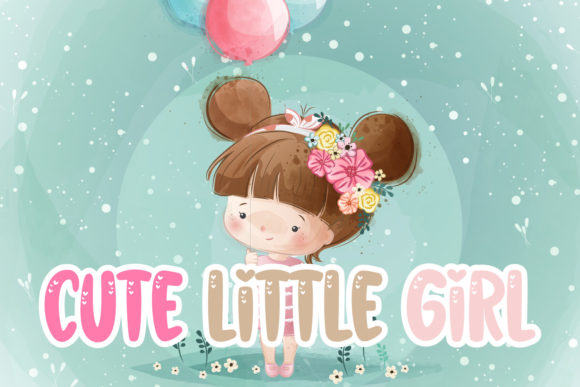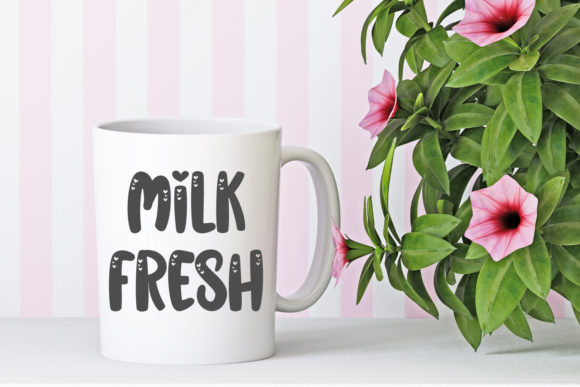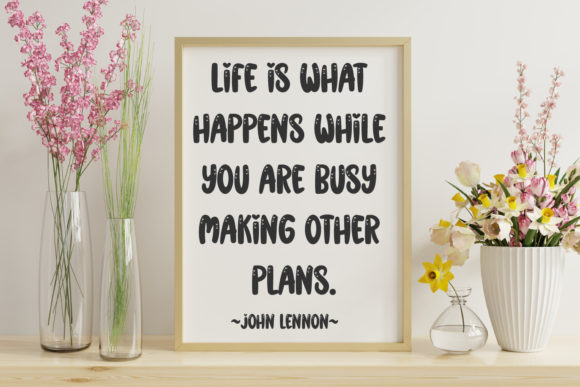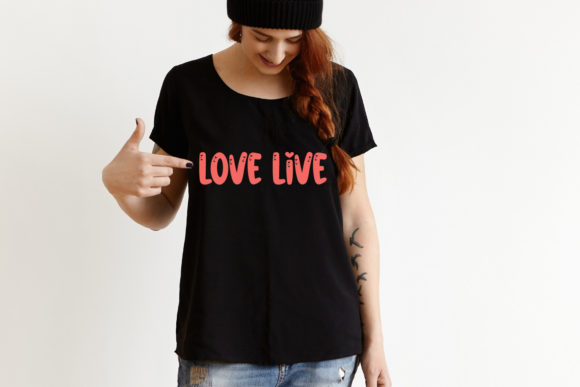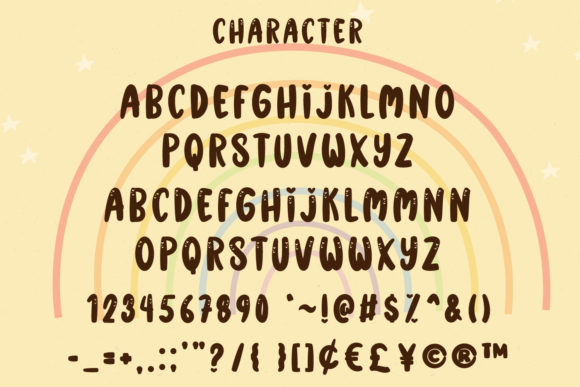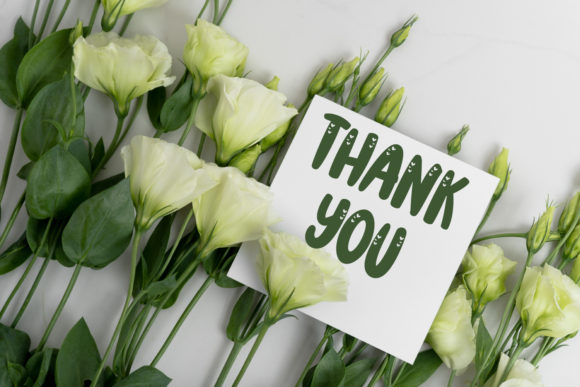
Introduction to Rainbow Live Font
As a designer, there’s nothing quite like the thrill of seeing a project come to life. You’ve poured your heart and soul into it, and the moment you add the finishing touches, it’s like a lightbulb moment – everything just clicks. But sometimes, no matter how hard you try, that project just needs a little something extra to make it truly stand out. That’s where the Rainbow Live Font comes in.
With its charming characters that seem to dance along the baseline, this high-quality font is the perfect addition to any creative project. Whether you’re working on a children’s book, a social media campaign, or a simple blog post, the Rainbow Live Font is sure to bring a smile to your audience’s face. And the best part? It’s completely free to download, making it a valuable resource for designers of all levels.
So why settle for a plain, generic font when you can add a touch of whimsy and personality to your design with the Rainbow Live Font? Its transparent background makes it easy to use on any background, and its high-quality design ensures that it will look great on any device. Get ready to take your creative projects to the next level with this fun and playful font!
Key Features of Rainbow Live Font
- High-quality, colorful design perfect for creative projects and presentations
- Unique, hand-drawn design with transparent background for flexible use in various designs
- Perfect design resource for designers, artists, and creatives working on digital projects
Honest Review: Rainbow Live Font
I recently stumbled upon the Rainbow Live Font, and I must say it’s been a game-changer for my creative projects. As a designer, I’m always on the lookout for high-quality fonts that can add a pop of color to my work.
- Transparency: The font has a transparent background, making it super easy to layer over different images or backgrounds.
- Customization: The Rainbow Live Font can be easily customized to fit your specific design needs.
- Color Variations: The font comes in a range of vibrant colors, making it perfect for creative projects that require a bit of flair.
One thing to note is that the font might not be the best choice for more subdued or minimalist designs. The bright colors can be overwhelming if not used thoughtfully.
Overall, I’m really impressed with the Rainbow Live Font. It’s a fantastic design resource that’s perfect for adding a bit of whimsy to your creative projects. With a little creativity, the possibilities are endless!
Tips for Getting the Most Out of Rainbow Live Font
To get the most out of Rainbow Live Font, use it in creative ways such as adding it to graphics, logos, or even using it as a background element. Experiment with different font sizes and colors to create unique designs.
Rainbow Live Font is commonly used in creative projects such as social media graphics, presentations, and marketing materials. Its transparent background makes it easy to use in combination with other design elements.